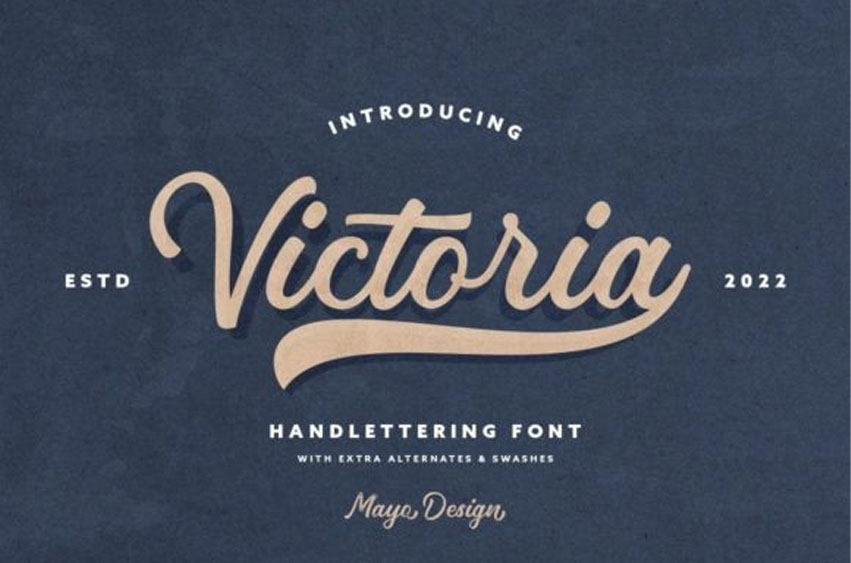
Victoria Font
Victoria Font is a modern script font with a stunning vintage flair. You can use this font in a wide range of works, such as logos, covers, posters, quotes, product packaging, merchandise, social media, and much more!